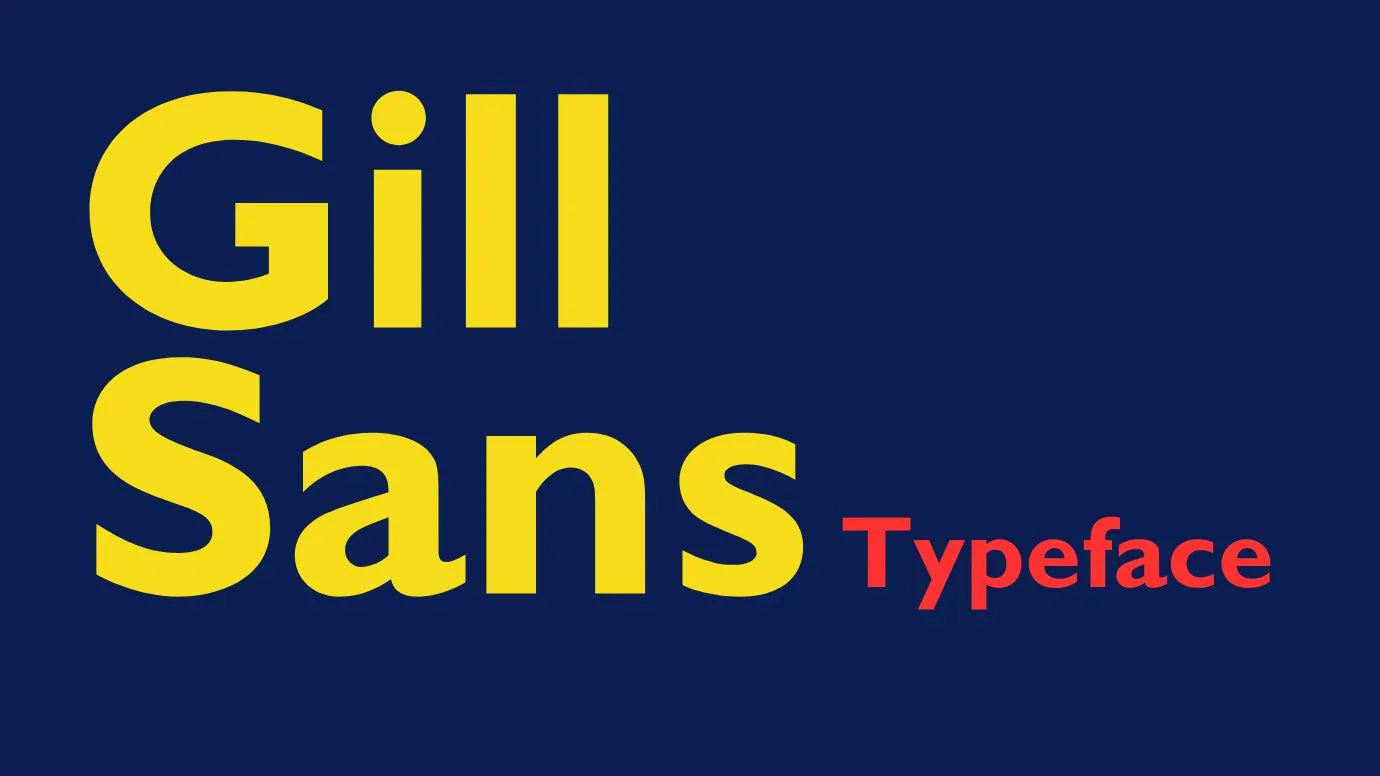
Gill Sans was designed by Eric Gill and a British branch of Monotype published this font in 1928. The design of this font is based on the underground alphabet of Edward Johnston’s which is a corporate typeface of London Underground.
Gill Sans Font
NameGill Sans Font
TypeHumanist
DesignerEric Gill